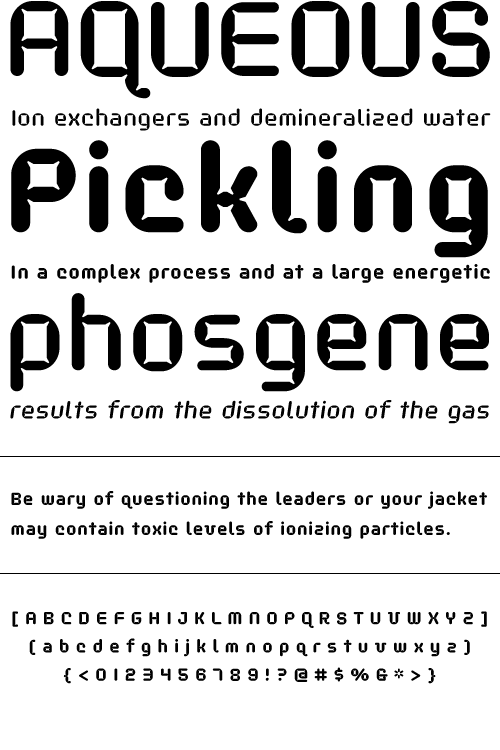
Hydrochlorica
This is a rounded display typeface with large ink inlets that make it look like the counters have been eaten away from the inside out by hydrochloric acid. It's legible at small sizes, but at large sizes the nice details make themselves apparent.
Year Designed:
2004
Weights:
Regular, Oblique, Light, Light Oblique